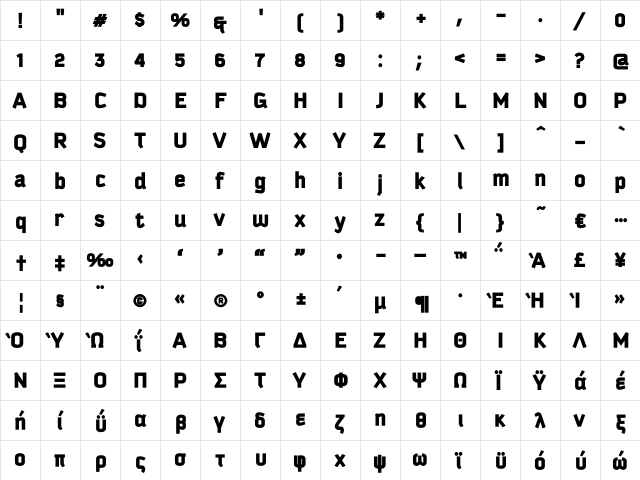
Kautiva Greek Black Regular
Design Context for Kautiva Greek Black Typeface
Kautiva Greek Black offers clean, dependable letterforms without strong stylistic allegiance, making it a practical choice for designers who need flexibility.